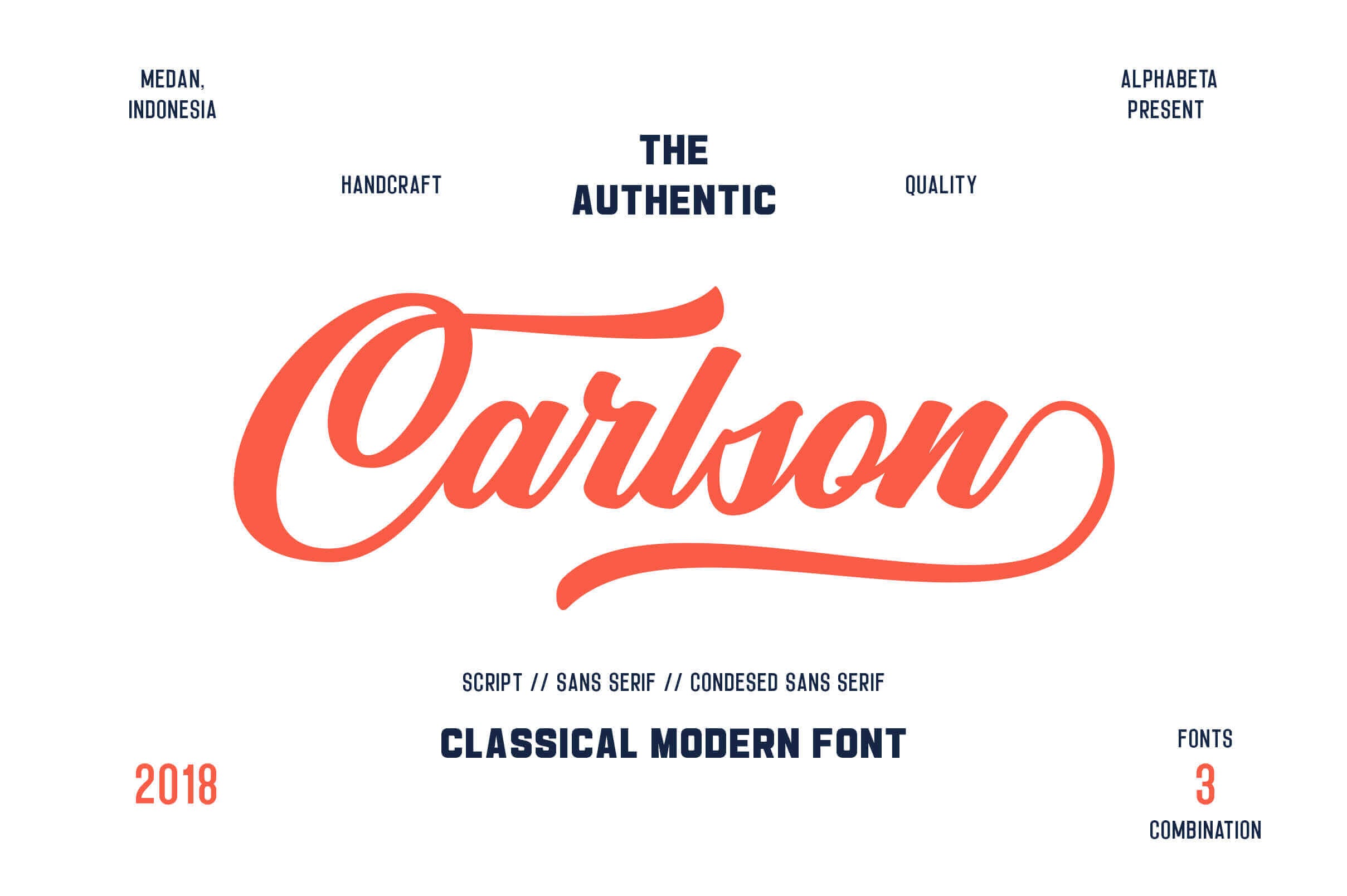
If your latest project involves some serious branding, you’ll want to pay close attention to this deal! Meet Carlson, a contemporary typeface that draws its inspiration from the Nouvo art concept. This stylish script and sans serif font family features 3 different fonts and loads of OpenType features to give you the true flexibility you’ll need.
- Contemporary design, inspired by Nouvo art concept.
- 3 fonts in 1 – Script, Bold Sans Serif, and Condensed Sans Serif.
- OpenType Features – swashes, stylistic sets, ligatures and more.
- Mix and match fonts and glyphs for your perfect unique style.
- Great choice for printed projects like labels, logos, badges, T-shirts, mugs, totes, prints and any other sort of branding.